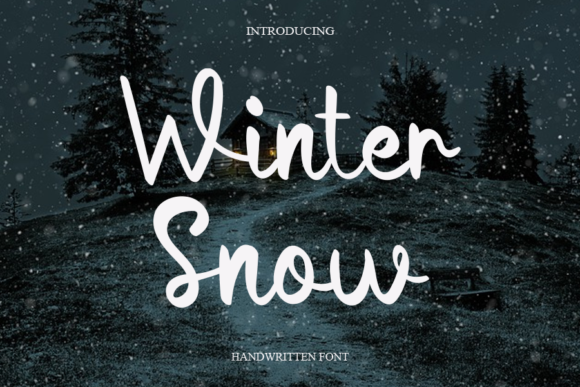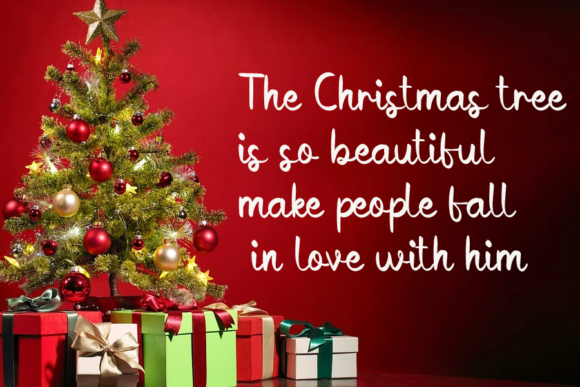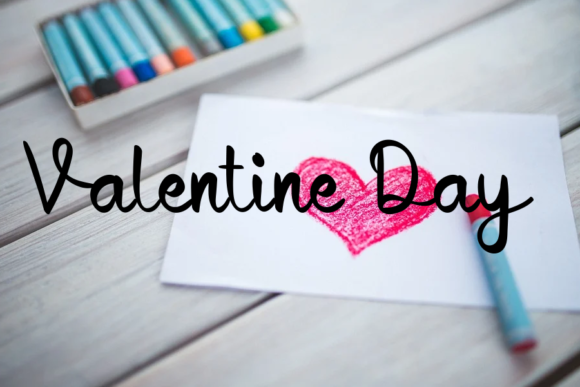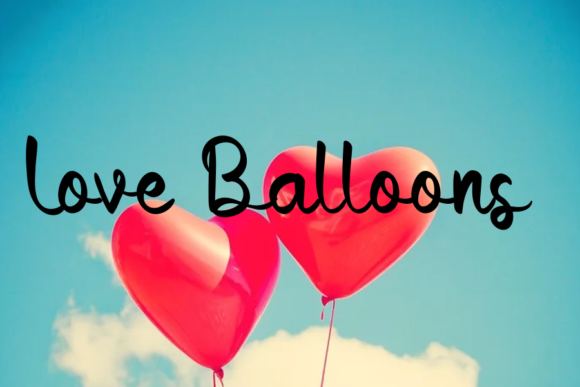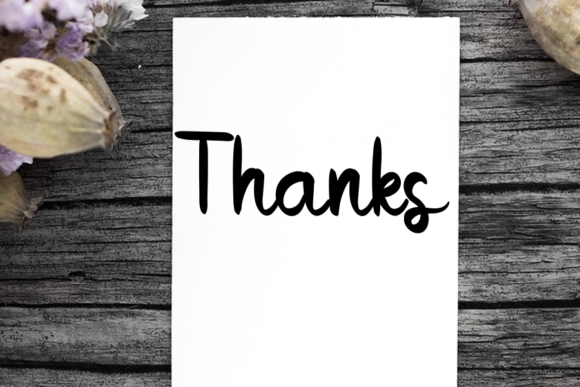
Winter Snow Font
Winter Snow is a beautiful and refined script font. It has a classy, elegant and modern look that can be used for logos, branding, invitations, stationery, wedding designs, social media posts, and much more!